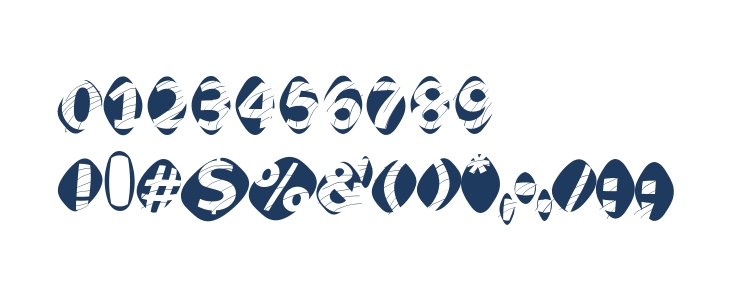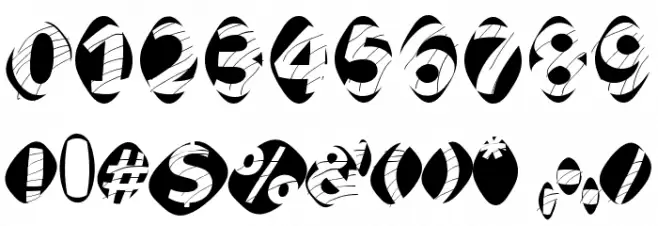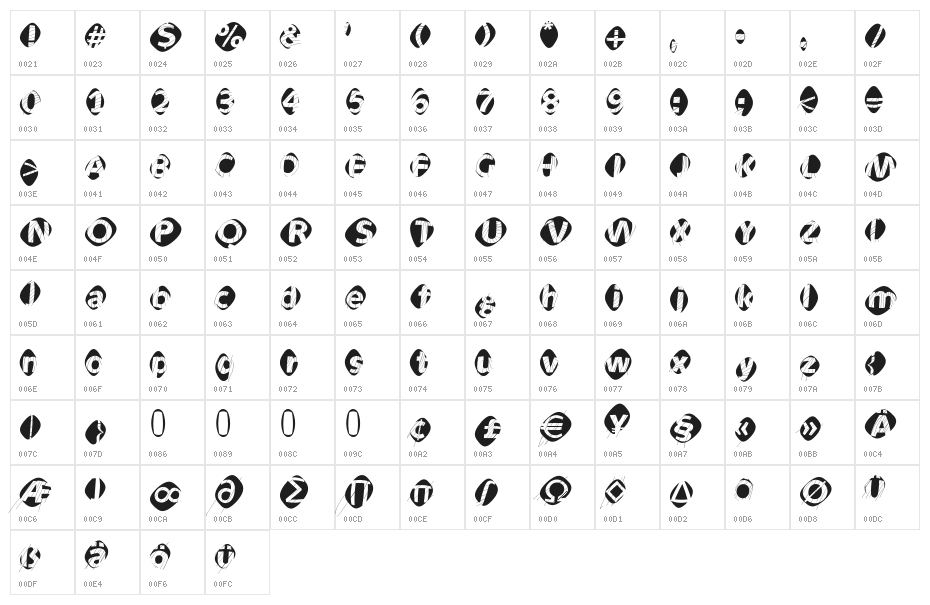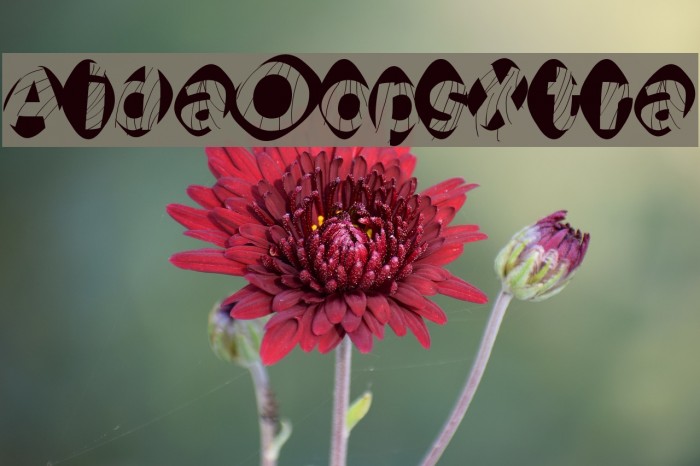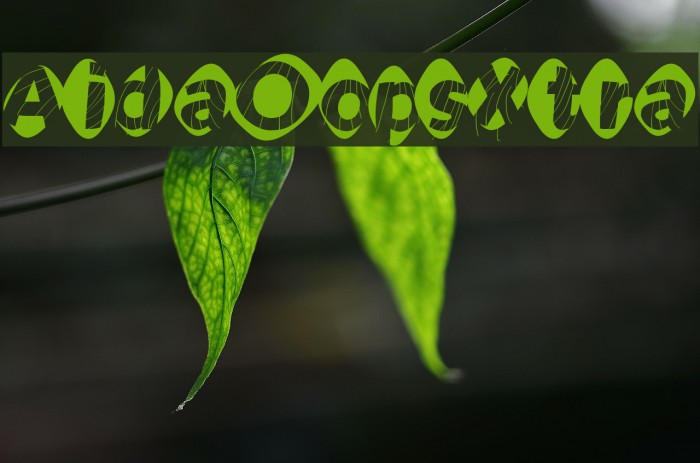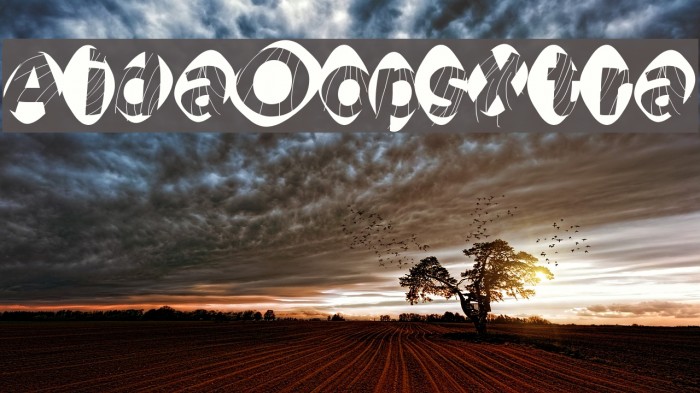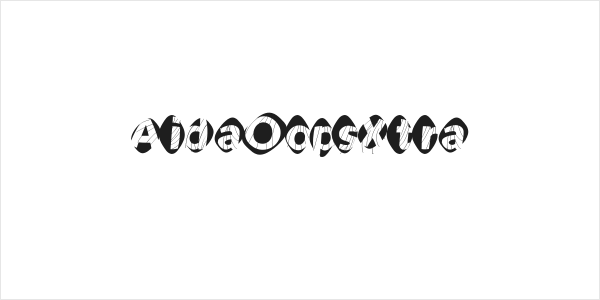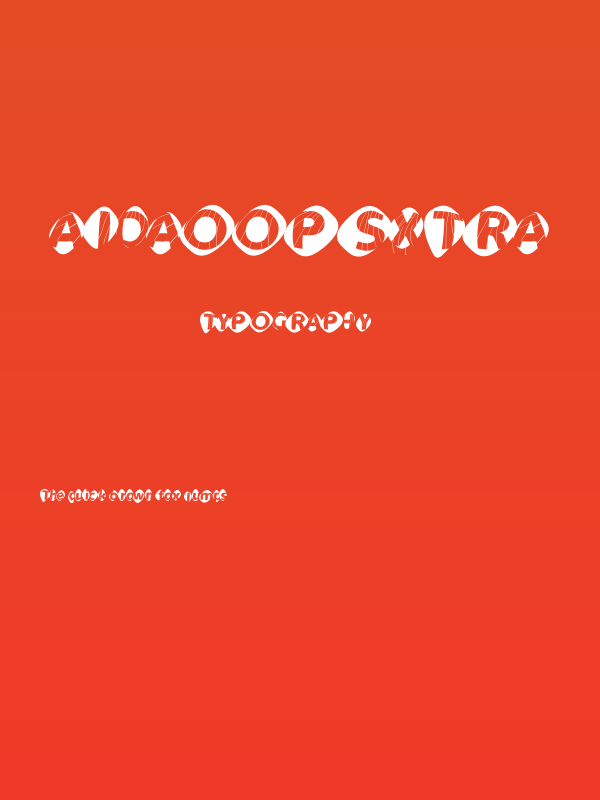
AidaOopsXtra Font
AidaOopsXtra Description
This font features a bold and dynamic design with a unique blend of geometric shapes and abstract patterns. Each character is crafted with a combination of thick, solid strokes and intricate line details, creating a striking visual contrast. The letters are enclosed within oval shapes, giving them a distinctive and modern appearance. The font's playful and artistic style makes it stand out, with a sense of movement and energy conveyed through its design. The combination of boldness and intricate detailing makes it suitable for creative and eye-catching projects.
| Proposed Projects | Ideal for artistic posters, modern branding, album covers, and creative digital art. |